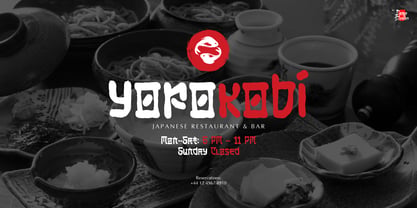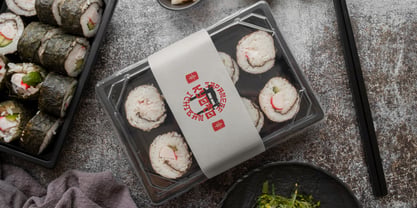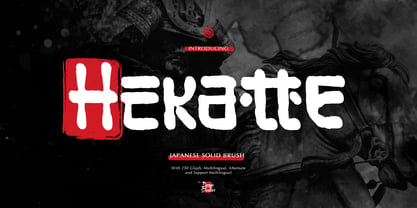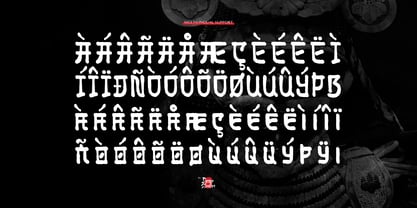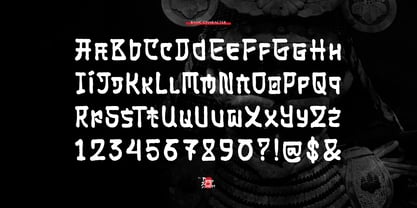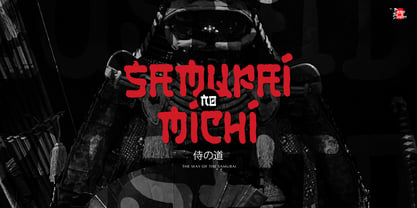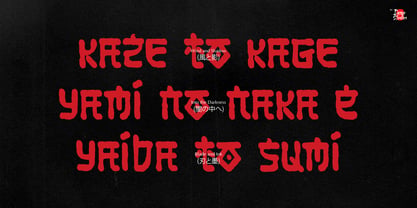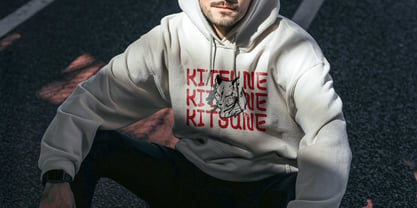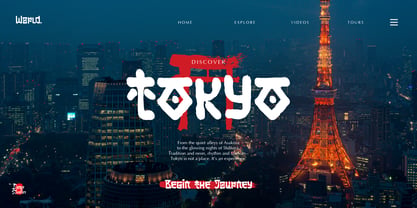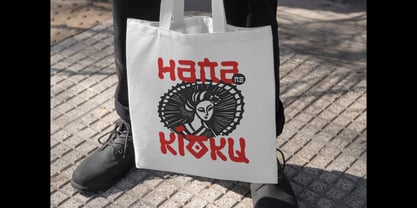
Hekatte
The Hekatte Font Family was designed by Dede Nugraha and published by Denustudio. Hekatte contains 1 styles. More about this family
Hekatte | Japanese Solid Brush, from Denustudios, suitable for any projects such as: logos, branding projects, homeware designs, product packaging, mugs, quotes, posters, shopping bags, t-shirts, book covers, name card, invitation cards, greeting cards, label, photography, watermark, special events, and all your other lovely projects that need Japanese Solid Brush a taste.
• Alternate and Ligature